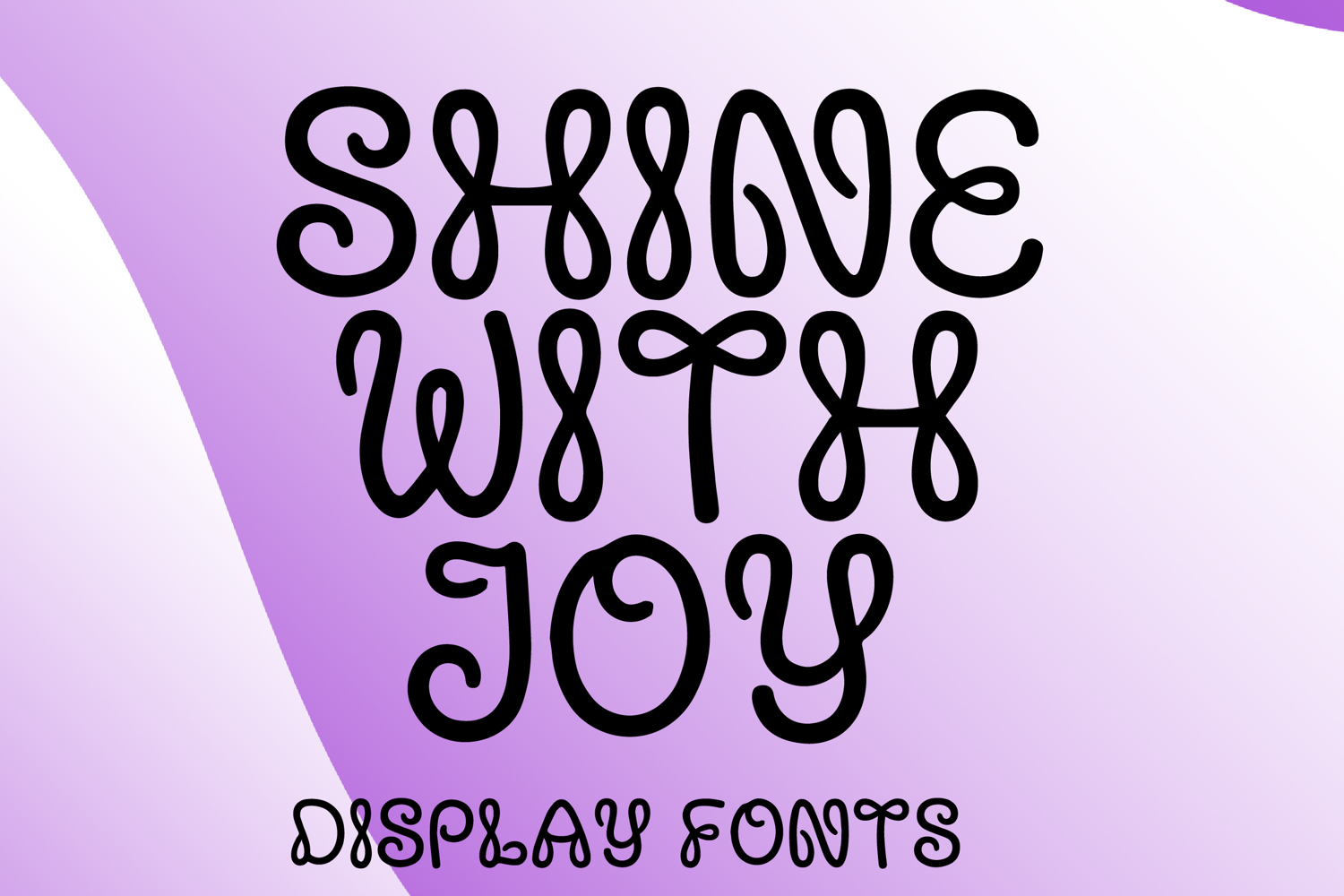
SHINE WITH JOY
SHINE WITH JOY is a whimsical decorative display font with a playful handcrafted style and cheerful artistic charm. Its uppercase letterforms feature tall flowing shapes, smooth rounded strokes, and distinctive looped swirls that create a fun, lively, and eye-catching personality. Designed with uppercase letters A–Z and numbers 0–9, SHINE WITH JOY is perfect for branding, posters, packaging, invitations, quotes, social media graphics, and creative projects that need a joyful and memorable statement
SHINE WITH JOY